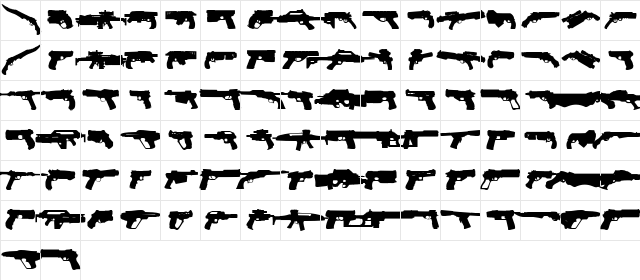
2nd Amendment 2050 Regular Font Preview
2nd Amendment 2050 Regular
2nd Amendment 2050 Regular Font Details
Design Context for 2nd Amendment 2050 Typeface
2nd Amendment 2050 is a composed and adaptable typeface that performs quietly and consistently across a wide range of design contexts.
Pro Tip: Use 2nd Amendment 2050 in both headline and body roles to test its range before committing to a single application.